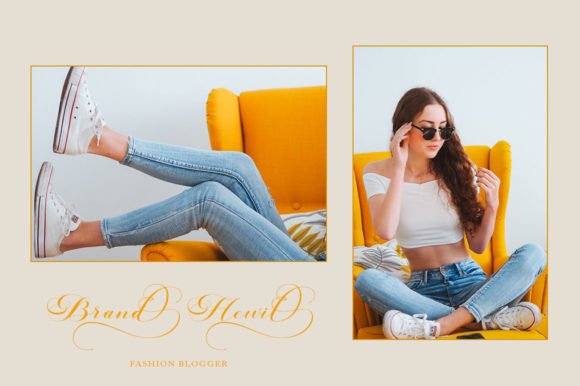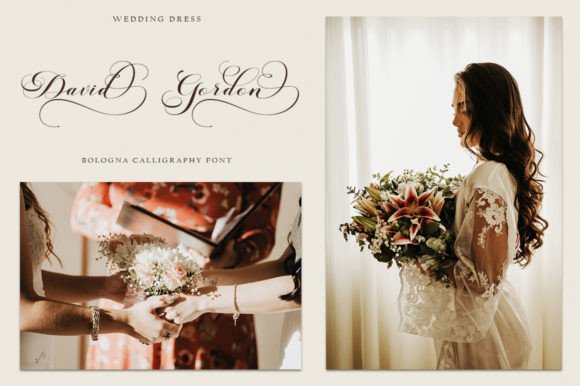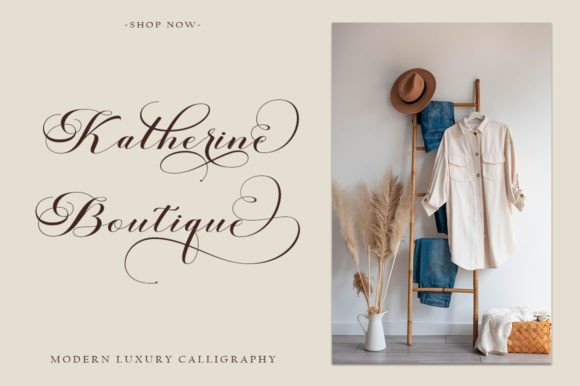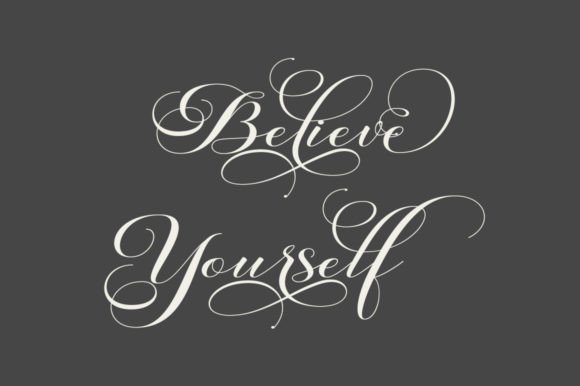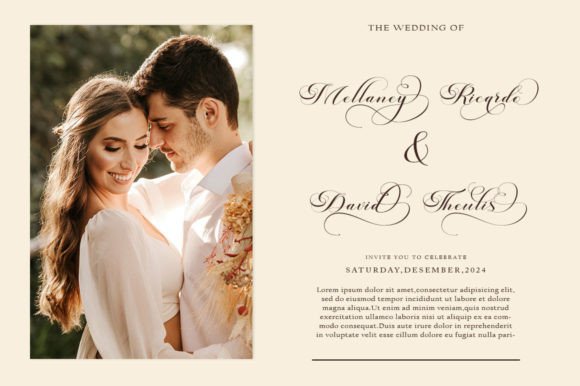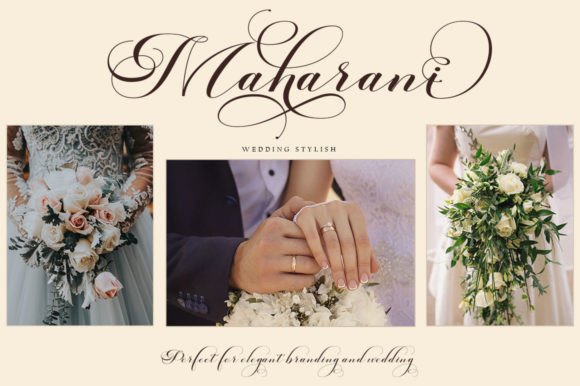
Bologna Font: Elevate Your Designs with Elegance and Sophistication
In the world of typography, fonts play a crucial role in conveying the tone and personality of a design. For designers and crafters looking to add a touch of elegance and sophistication to their projects, the Bologna Font is an excellent choice. This classy, stylish script calligraphy font is designed to make your designs stand out with its unique and timeless style.
What Makes Bologna Font Special?
Bologna Font is not just another script font; it’s a masterpiece that combines elegance with a touch of modernity. Here are some features that make it special:
- PUA Encoded: This font is PUA (Private Use Area) encoded, which means you can easily access all the glyphs and ligatures. This feature makes it incredibly user-friendly, allowing you to get creative without any hassle.
- Timeless Style: The Bologna Font boasts a completely different and timeless style that will make your designs memorable. Its elegance is versatile, making it suitable for a wide range of projects.
- Elegant and Sophisticated: With its calligraphy style, this font adds a touch of sophistication to any design. Whether you’re working on a logo, a wedding invitation, or a branding project, Bologna Font is sure to impress.
The versatility of the Bologna Font makes it perfect for a variety of projects. Here are some ideas to get you started:
- Wedding and Event Invitations: Add a touch of elegance to your wedding or event invitations with this beautiful script font.
- Branding and Logos: Create a lasting impression with a logo or brand identity that exudes sophistication and class.
- Packaging and Product Design: Elevate your product design with a font that speaks luxury and quality.
- Stationery and Paper Goods: From business cards to letterheads, Bologna Font can add a professional yet elegant touch to your stationery.
Why Choose Bologna Font?
With so many fonts available, why should you choose Bologna Font for your projects? Here are some compelling reasons:
- Unique Style: In a sea of similar fonts, Bologna Font stands out with its unique and stylish approach to script calligraphy.
- Easy to Use: Being PUA encoded, it’s incredibly easy to use, even for those who are new to using glyphs and ligatures.
- High-Quality Design: This font is designed with high-quality in mind, ensuring that it looks great in both print and digital formats.
Tips for Using Bologna Font Effectively
To get the most out of Bologna Font, here are some tips:
- Pair it with Other Fonts: While Bologna Font is stunning on its own, pairing it with complementary fonts can create a truly unique look.
- Experiment with Sizes and Colors: Don’t be afraid to experiment with different sizes and colors to find the perfect combination for your design.
- Use it for Headlines and Titles: Bologna Font is perfect for headlines and titles, where its elegance and sophistication can really shine.
Bologna Font is a stylish and elegant script calligraphy font that can elevate any design project. With its timeless style, PUA encoding, and versatility, it’s an excellent choice for designers and crafters looking to add a touch of sophistication to their work. Whether you’re creating wedding invitations, branding materials, or product packaging, Bologna Font is sure to make your designs stand out.